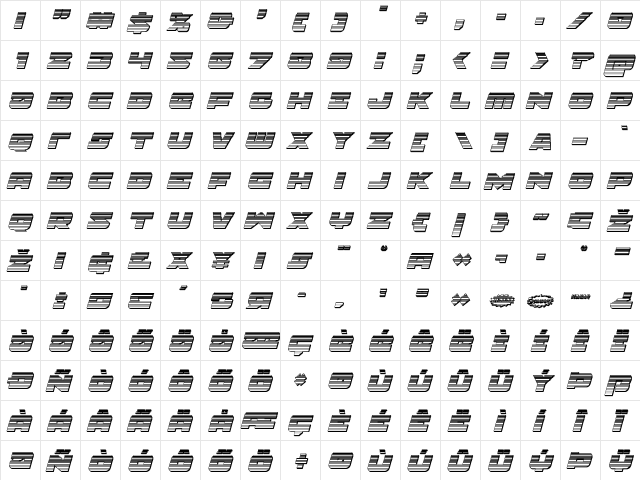
Banjin Scanlines Chrome Italic Italic Font Preview
Banjin Scanlines Chrome Italic Italic
Banjin Scanlines Chrome Italic Italic Font Details
Design Context for Banjin Scanlines Chrome Italic Typeface
Banjin Scanlines Chrome Italic is a composed and adaptable typeface that performs quietly and consistently across a wide range of design contexts. The dynamic lean of this cut emphasises speed and emphasis in any layout.